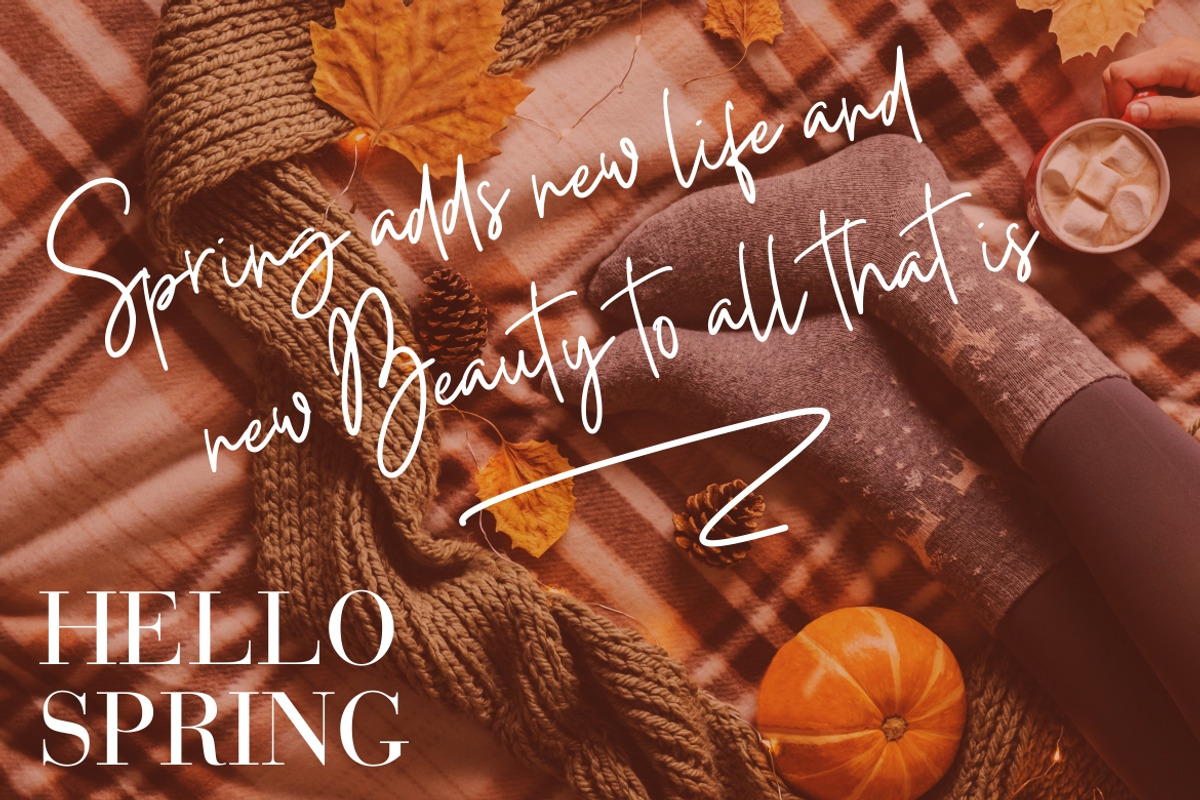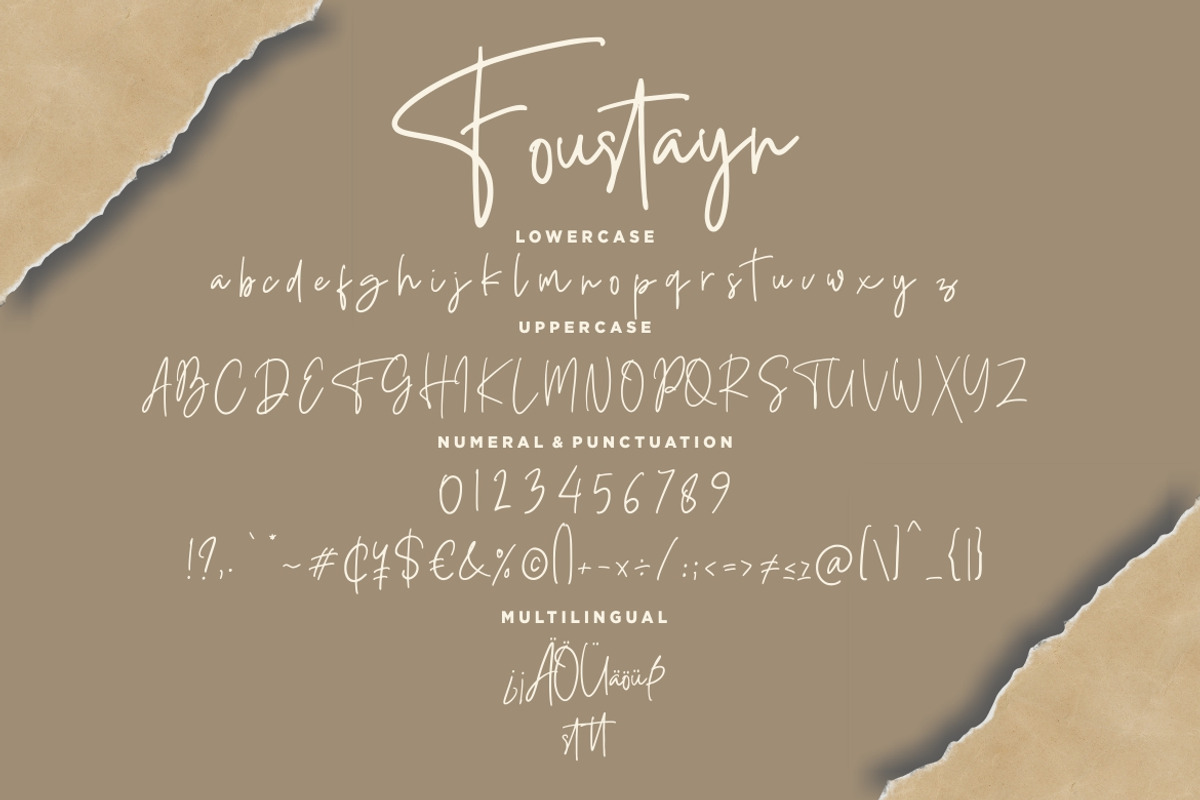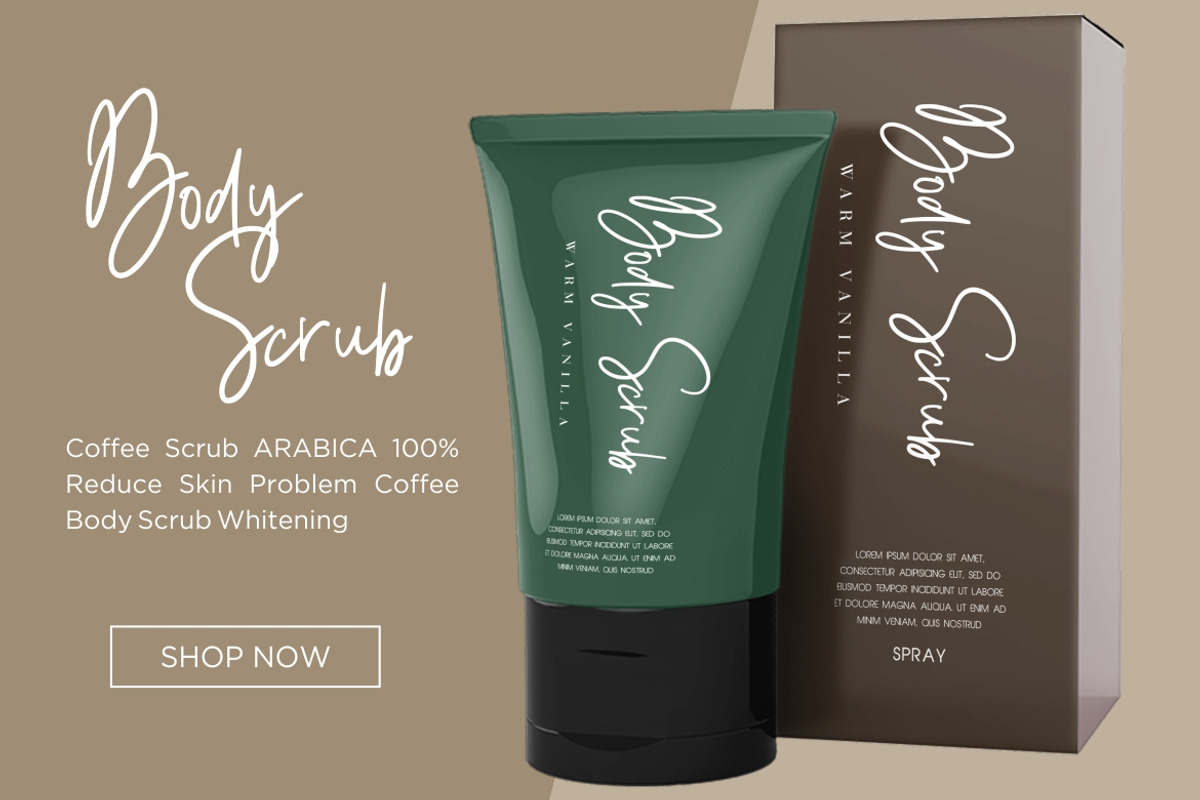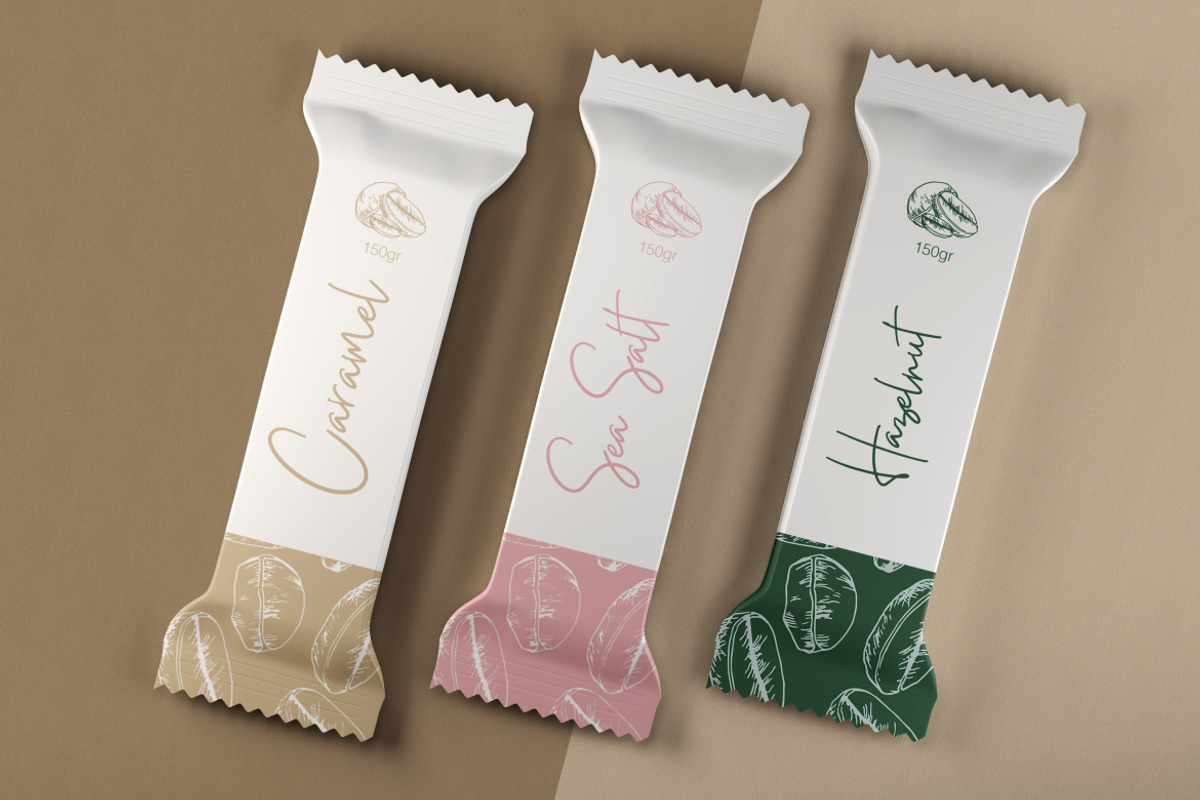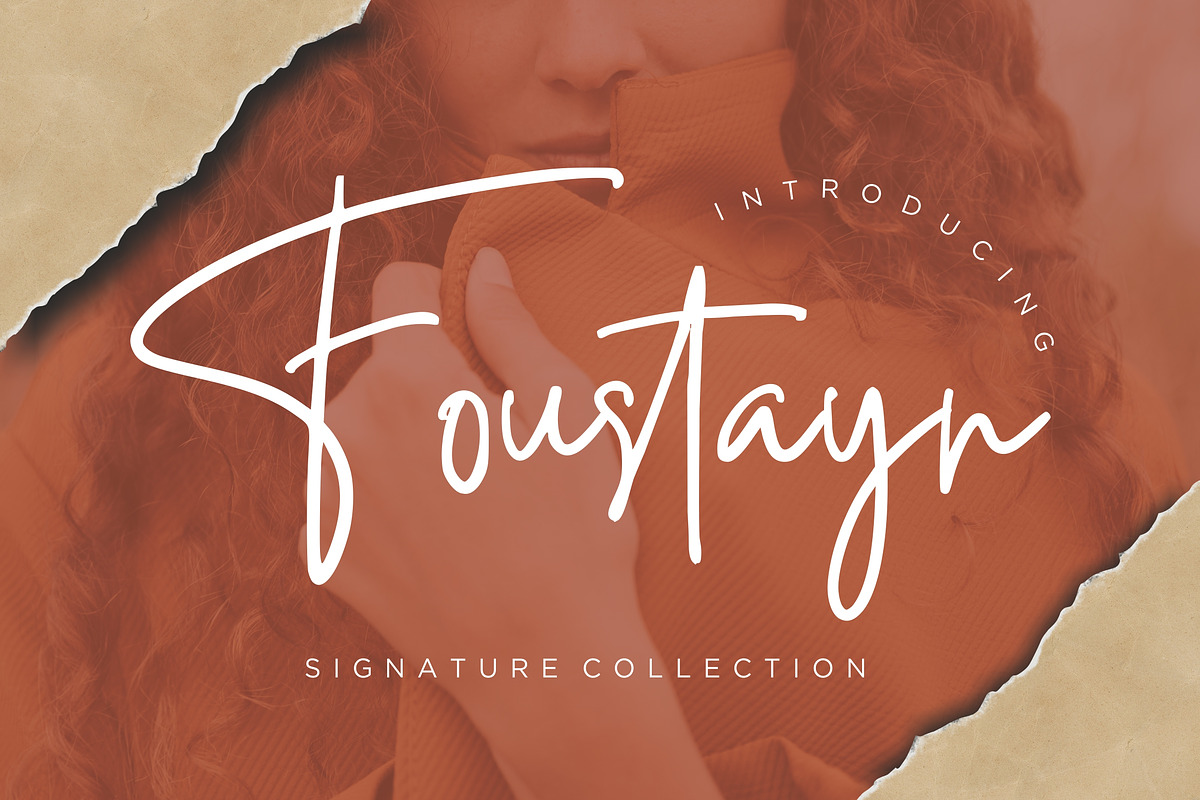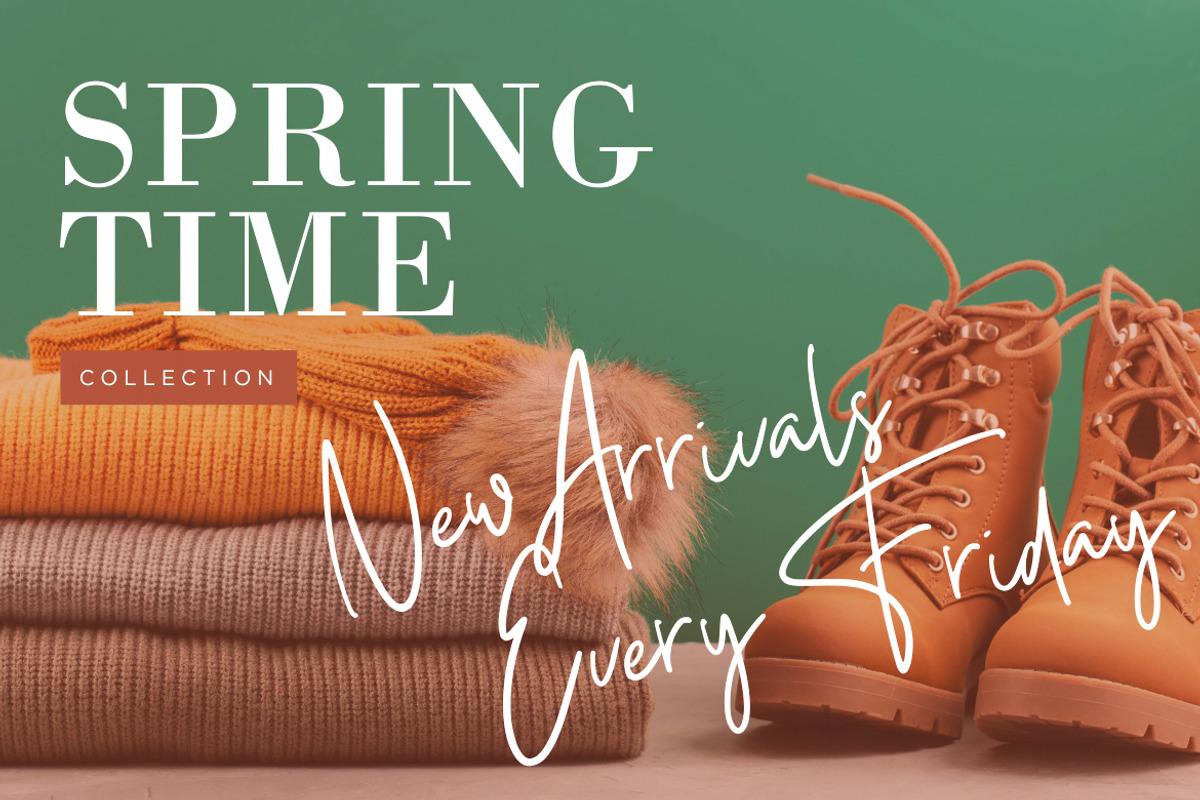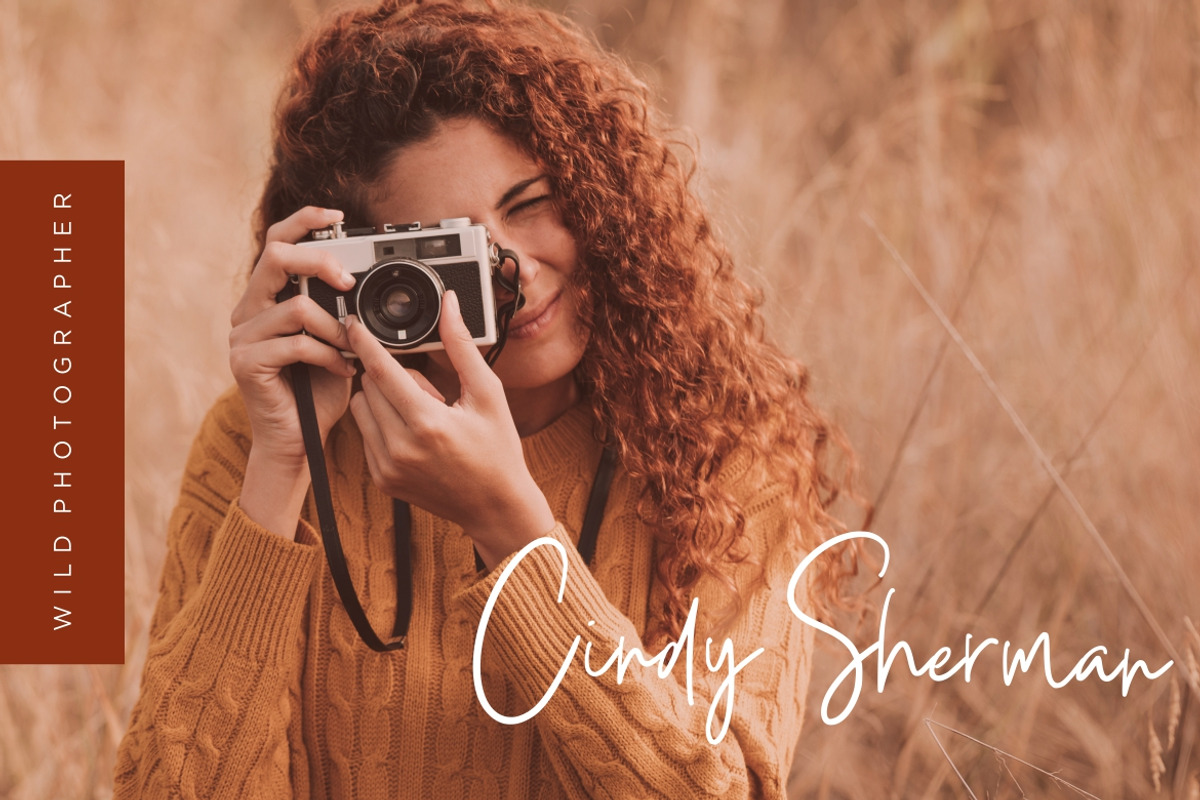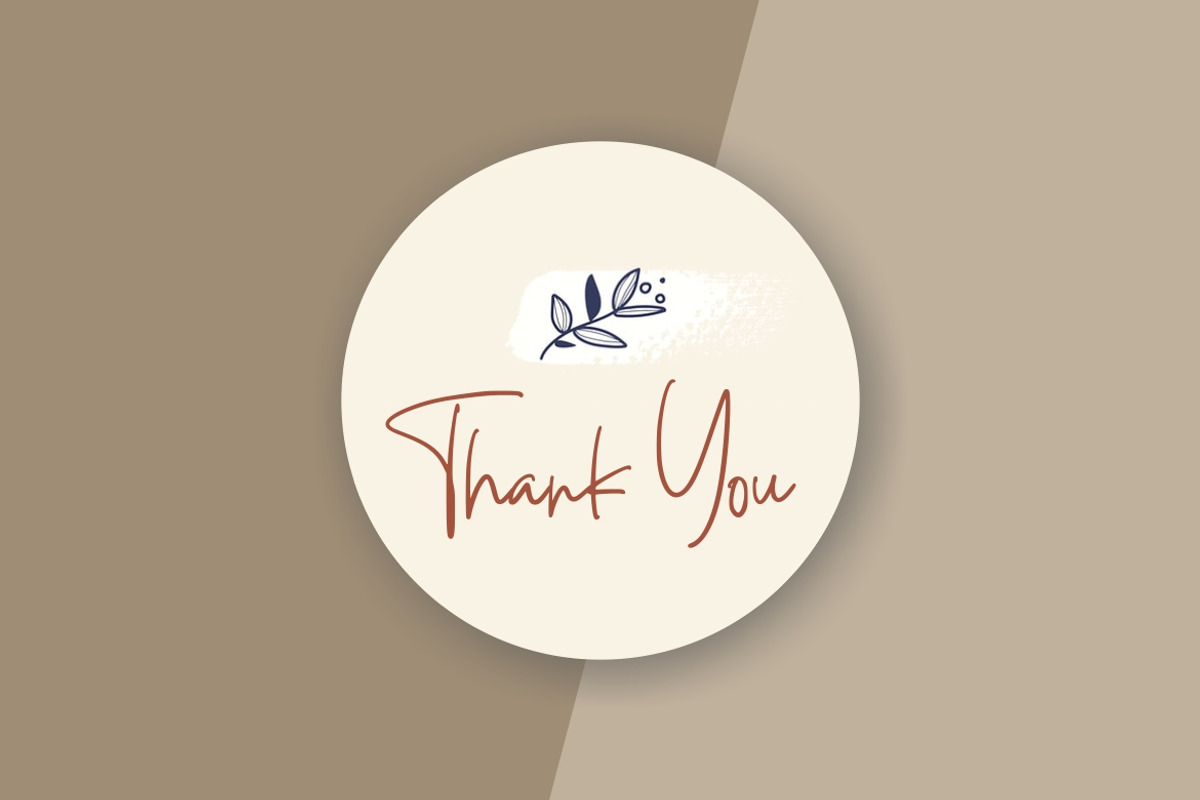
Foustayn Signature Business Font
Foustayn is signature script font collection that perfect for your awesome project.
Foustayn is perfect for branding projects, logo, wedding designs, social media posts, advertisements, product packaging, product designs, label, photography, watermark, invitation, stationery and any projects that need handwriting taste.
Foustayn Signature Business Font by Creatype Studio fits naturally into Branding, posters, packaging, typography.